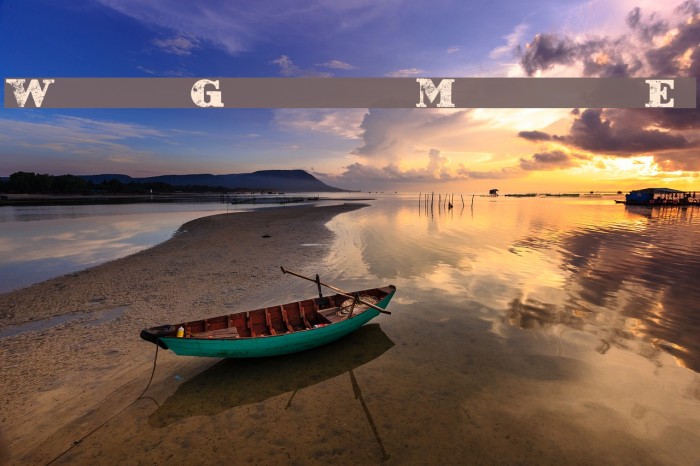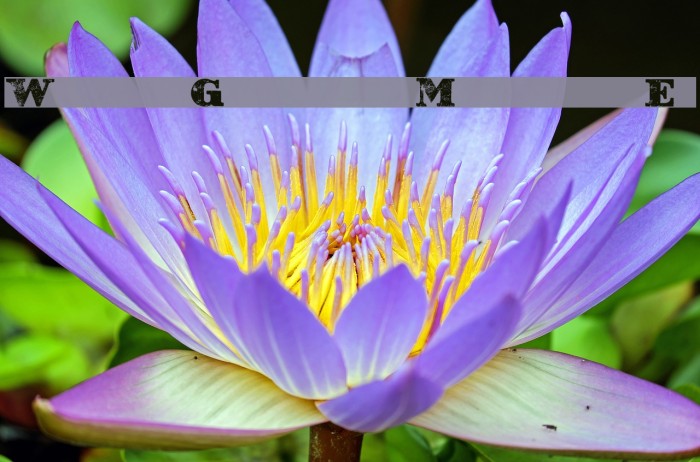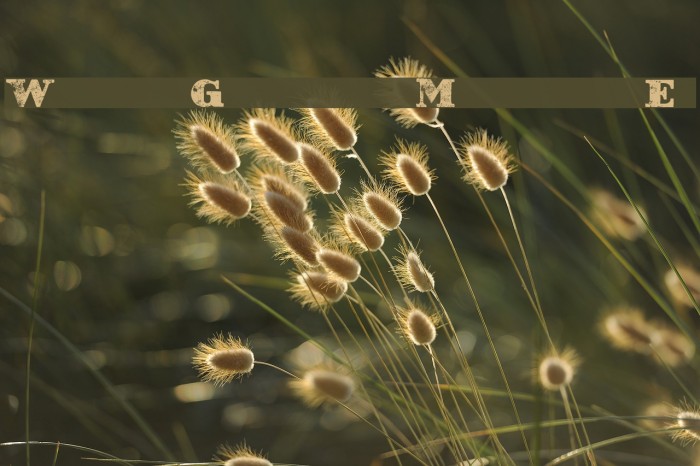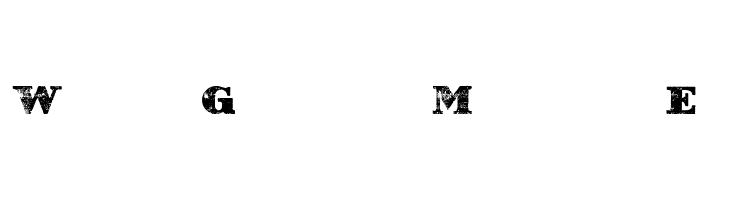
Western Grungy by Marta van Eck Font
This font exudes a rugged, distressed aesthetic reminiscent of the Old West. The bold, uppercase letters are heavily textured, giving them a worn, grungy appearance that suggests a history of use and weathering. The characters are wide and commanding, with a strong presence that demands attention. The font's rough edges and uneven surfaces contribute to its vintage, rustic charm, making it ideal for designs that require a touch of nostalgia or a gritty, authentic feel. The overall style is both bold and decorative, with a unique character that sets it apart from more polished, modern typefaces.
A rugged, distressed font with a Western, grungy aesthetic.
- Proposed Projects: Ideal for vintage posters, Western-themed events, rustic branding, and any project needing a bold, gritty typeface.
- Width: Expanded
- Overall Style: Vintage